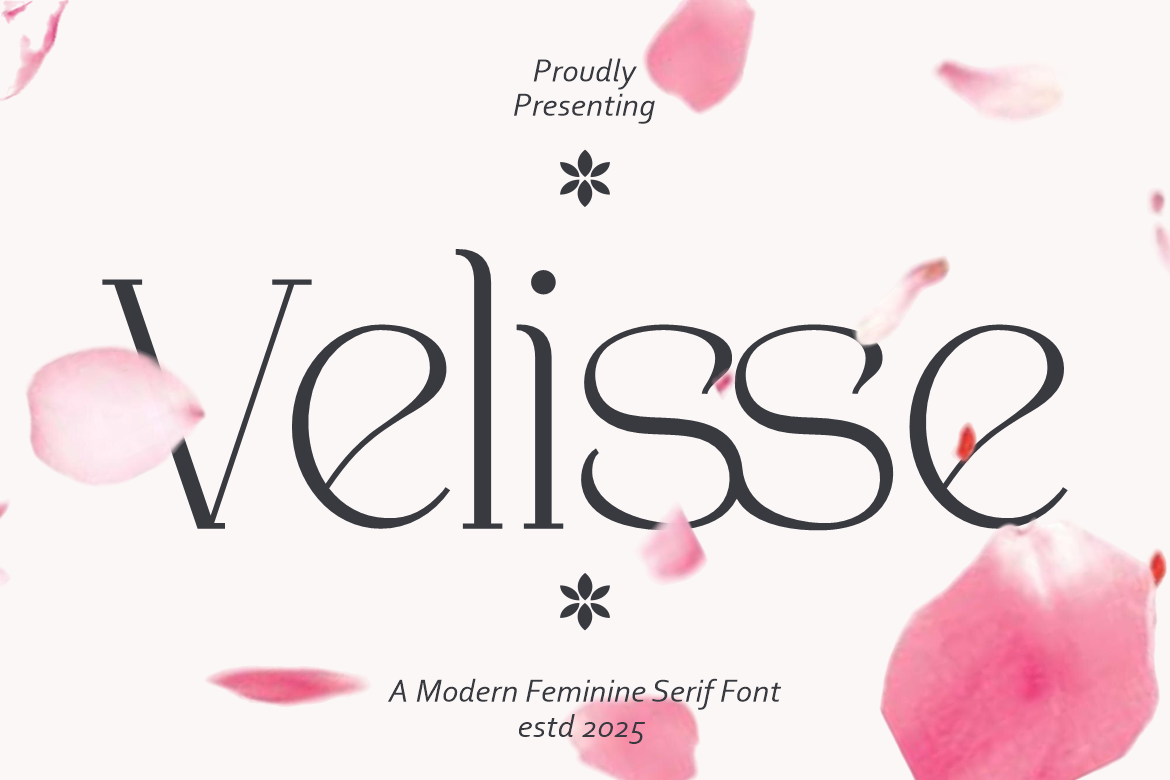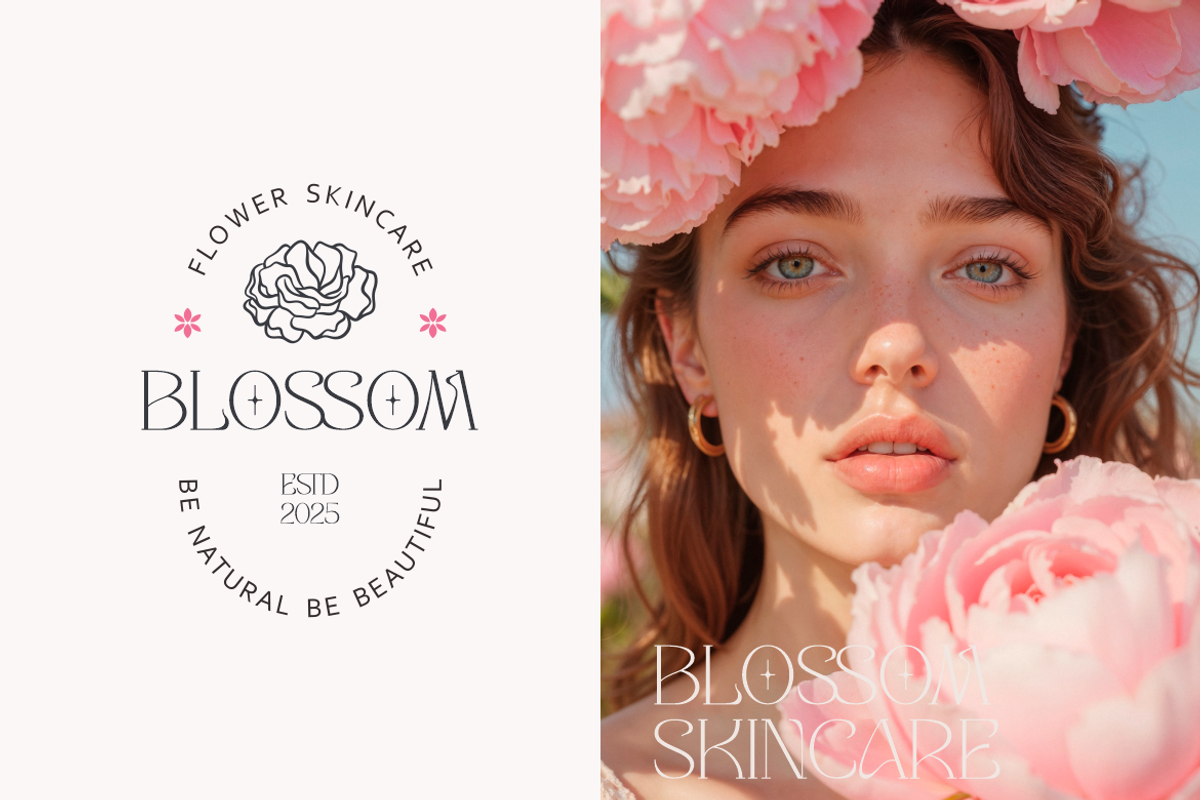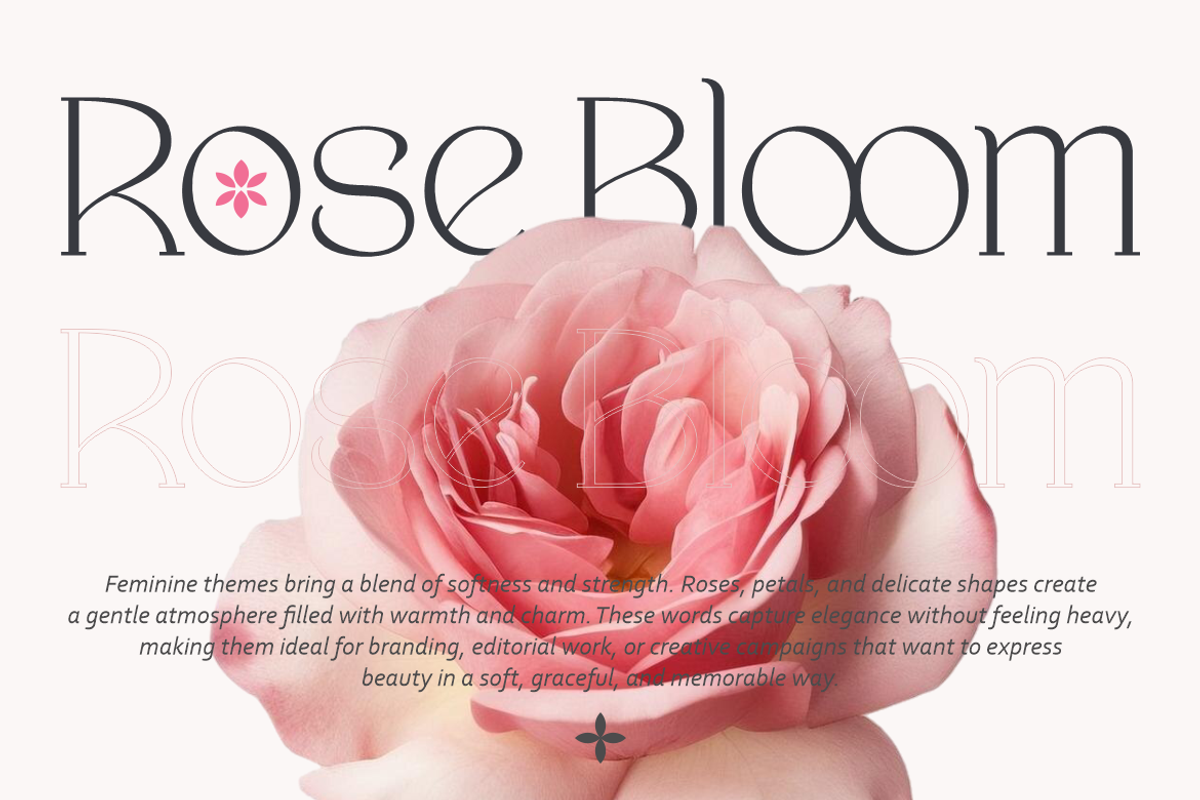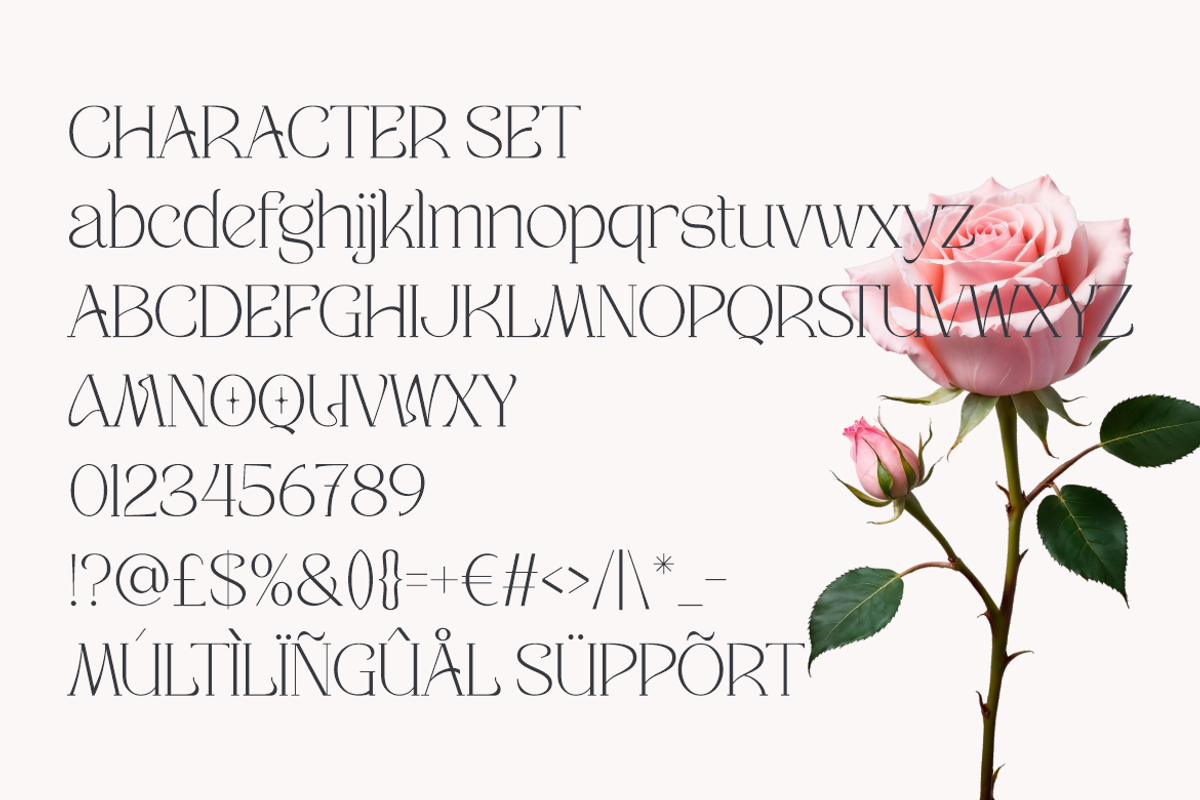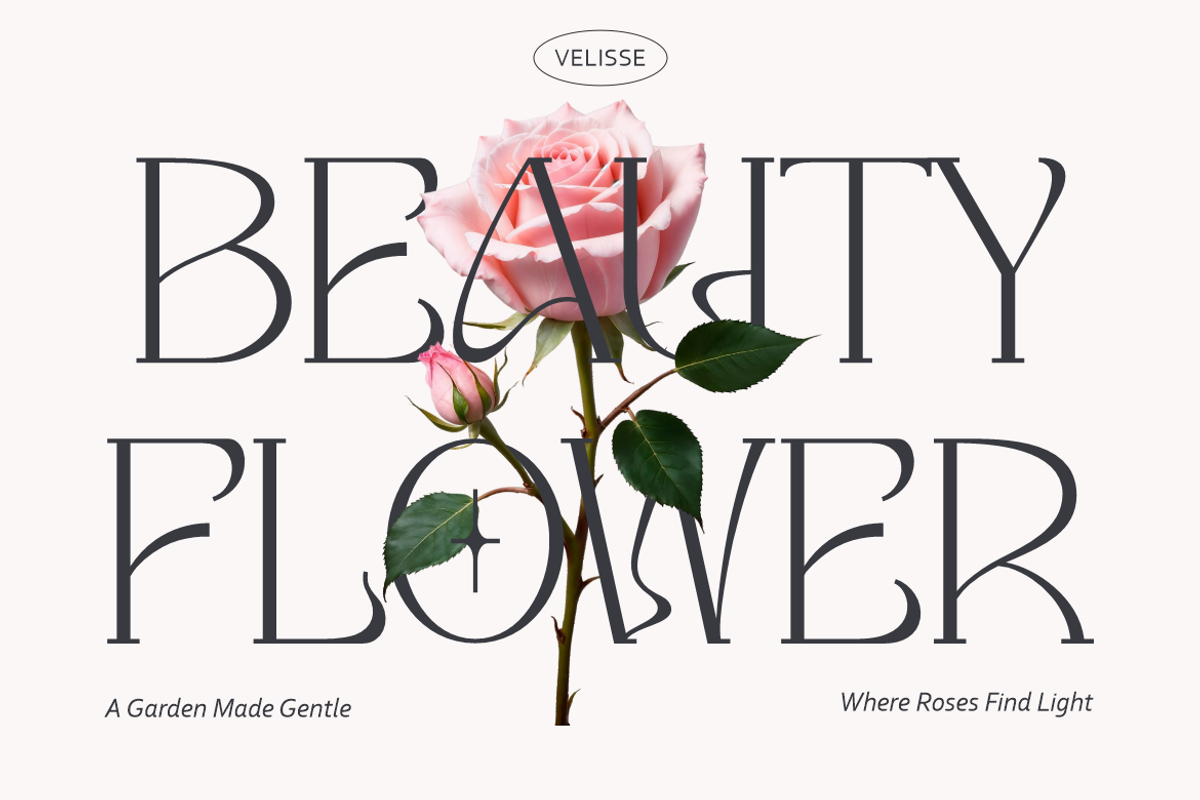
Velisse Feminine Serif Font
Velisse Feminine Serif Font is a refined serif typeface designed to express elegance, softness, and modern femininity. The letterforms feature tall proportions with smooth vertical flow, creating a calm and graceful rhythm across words. Each character shows balanced thick and thin strokes, giving the font a delicate contrast that feels light yet confident. The serifs are gently curved and subtly tapered, avoiding sharp edges and maintaining a soft visual tone. Counters are open and rounded, improving readability while preserving an elegant silhouette. Decorative details appear minimal and intentional, allowing the font to feel clean, mature, and versatile. Overall spacing is carefully measured, so headlines look luxurious without appearing crowded. Velisse Feminine Serif Font carries a refined personality that feels romantic, elegant, and contemporary at the same time.
This font works beautifully for logo design, branding systems, editorial layouts, and premium visual identities. It fits well in beauty, skincare, fashion, lifestyle, wedding, and boutique-related projects. Headlines, magazine titles, book covers, and film titles benefit from its graceful structure and clear presence. Invitations, greeting cards, packaging, and product labels gain a sophisticated and feminine touch when paired with this serif. The font also performs well in posters, advertisements, and social media visuals that aim for elegance rather than bold aggression. Velisse Feminine Serif Font balances decorative charm with professional clarity, making it suitable for both creative and commercial use. Designers can rely on its timeless serif construction to deliver a polished and memorable visual message. Velisse Feminine Serif Font supports multilingual characters, helping brands communicate beauty and refinement across global audiences.